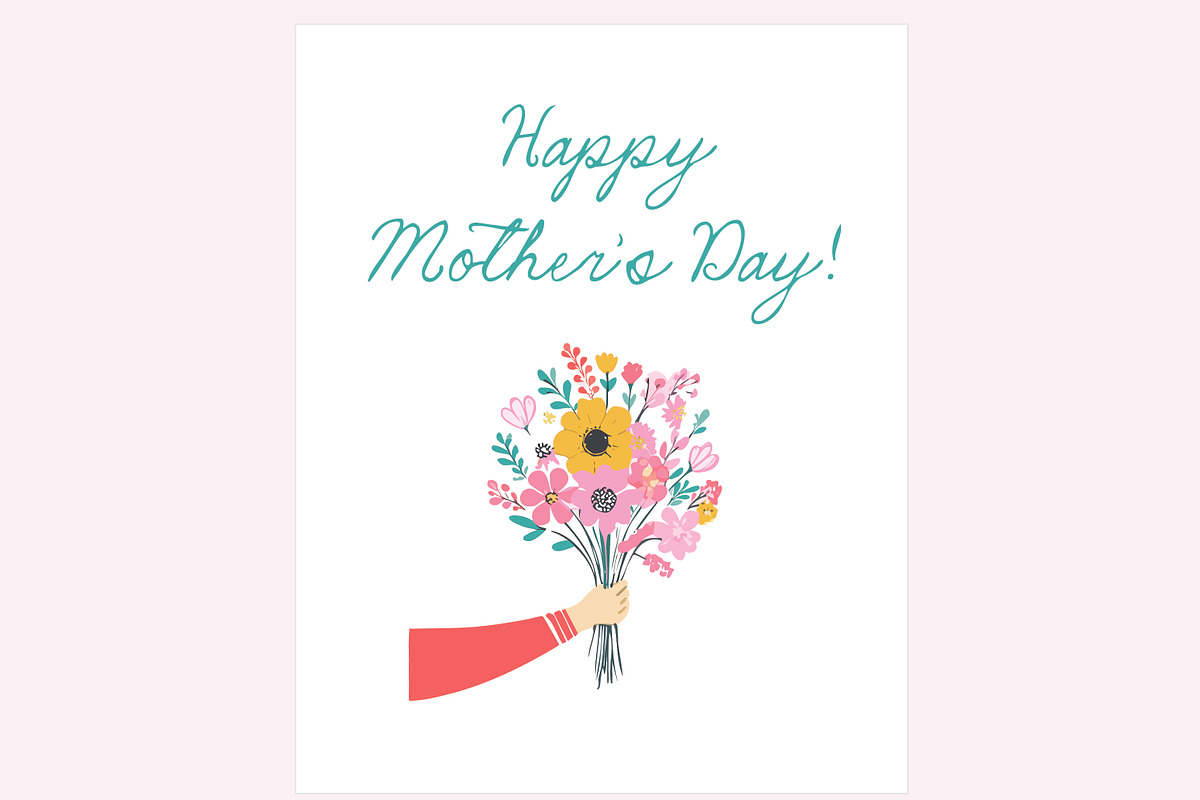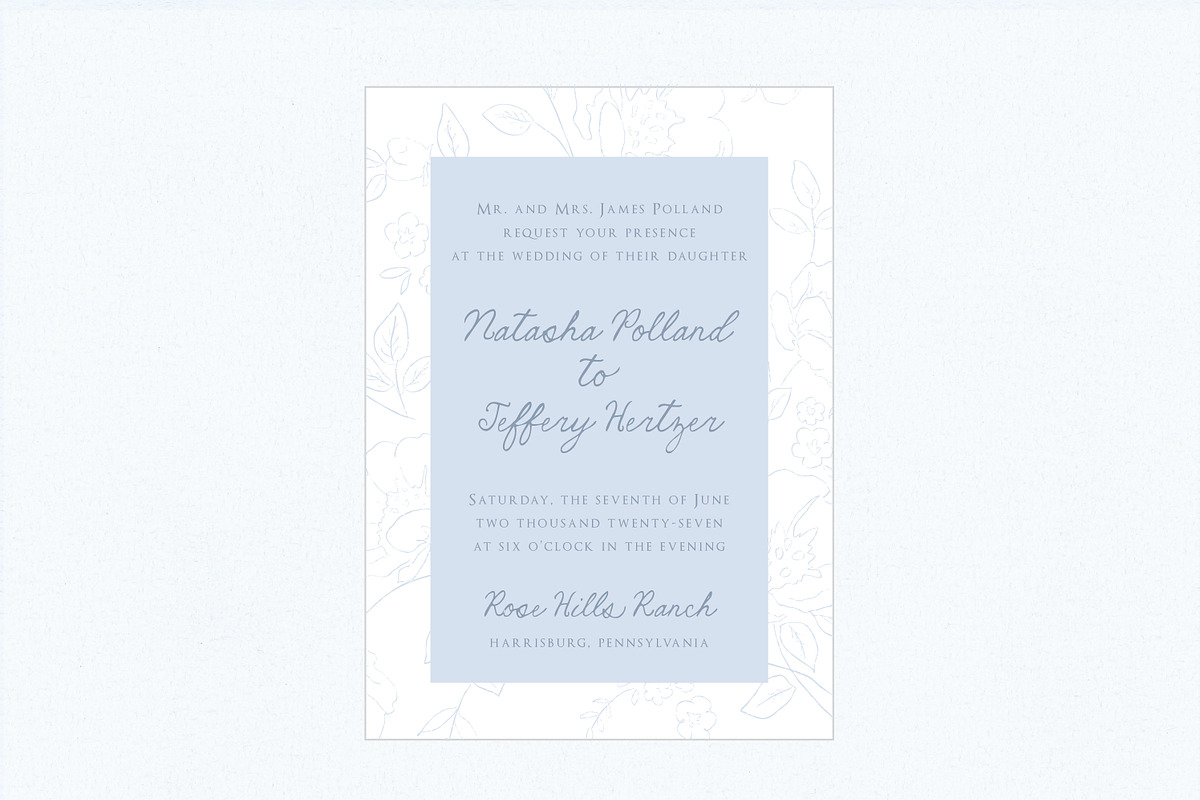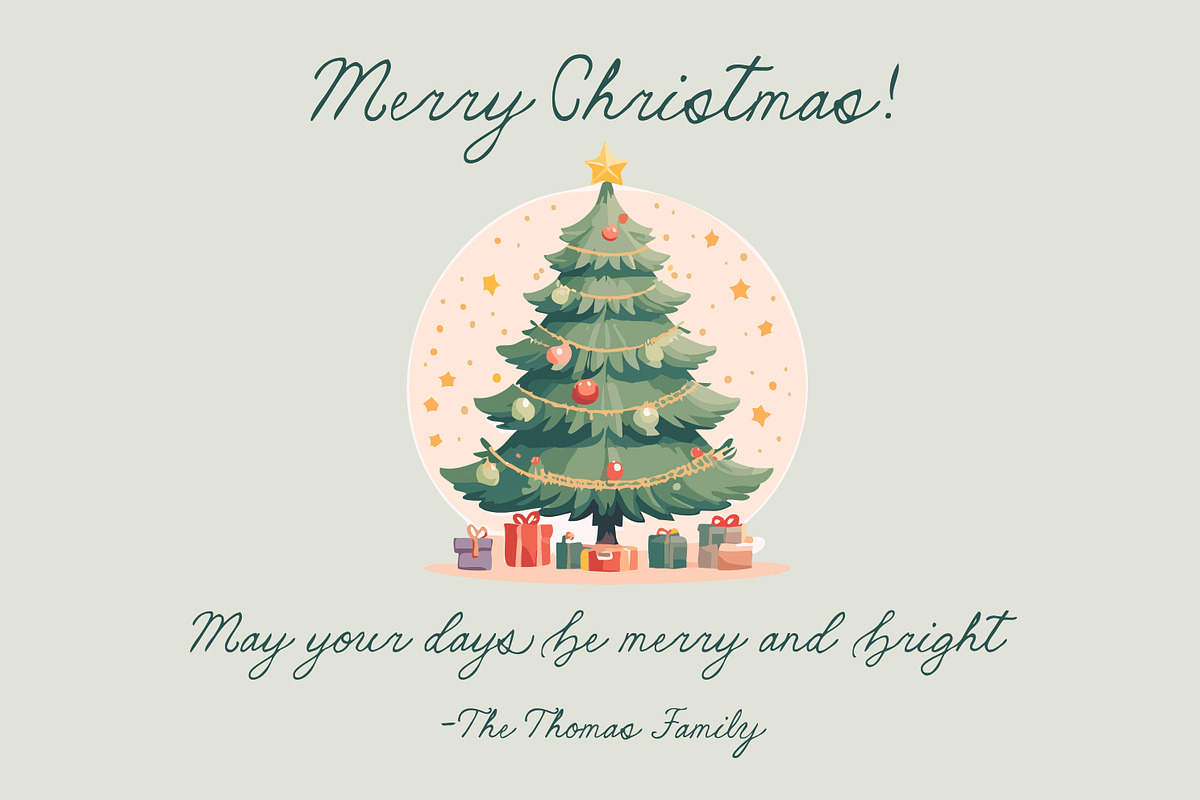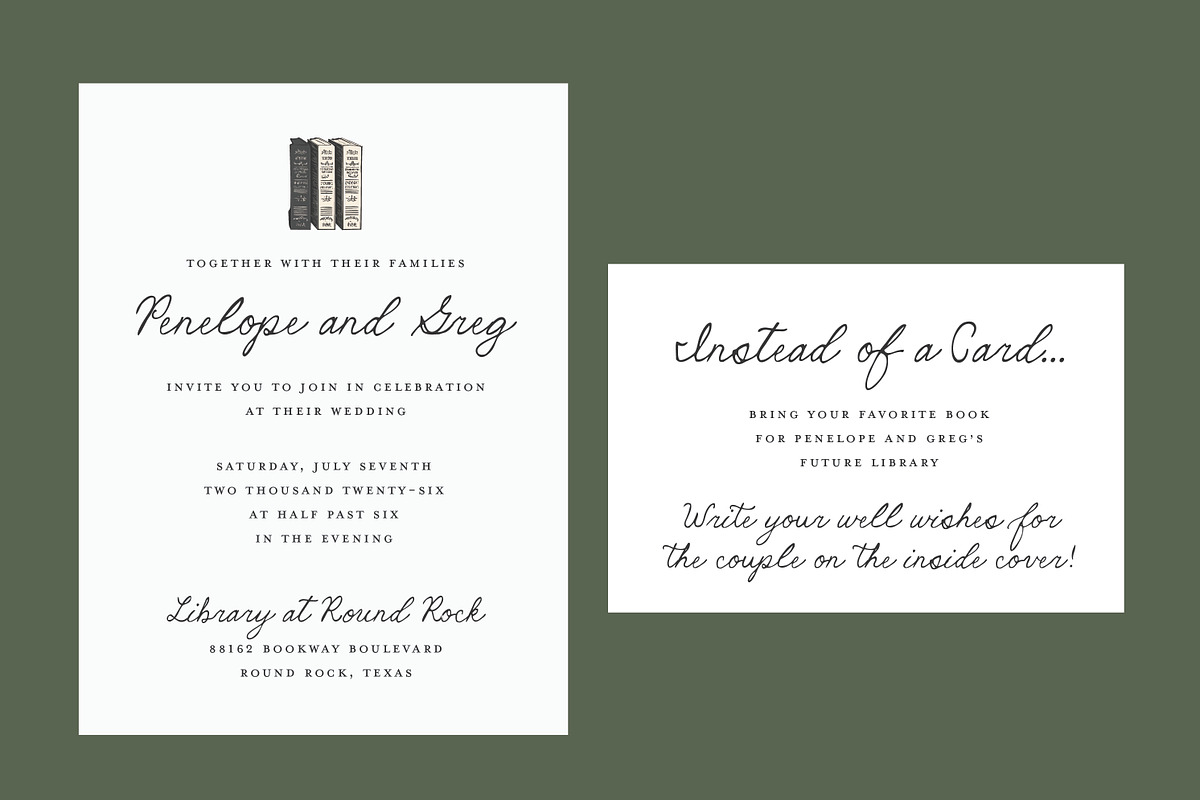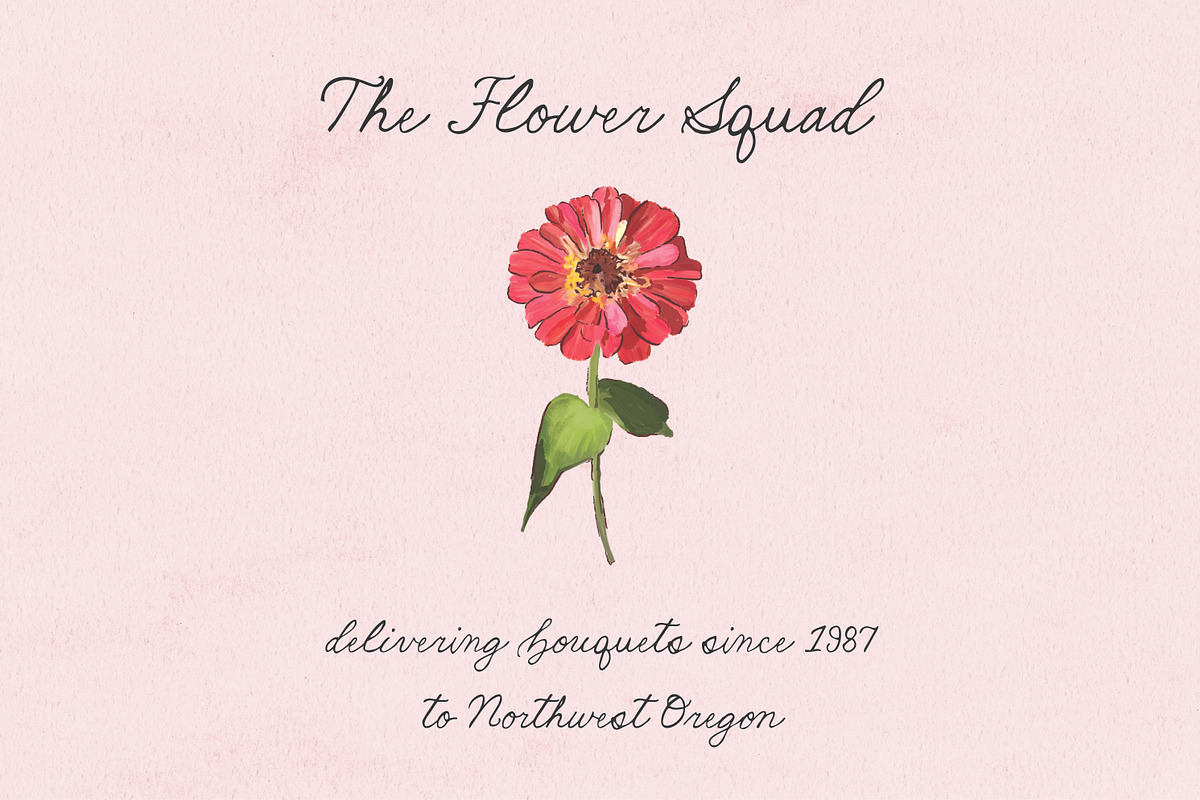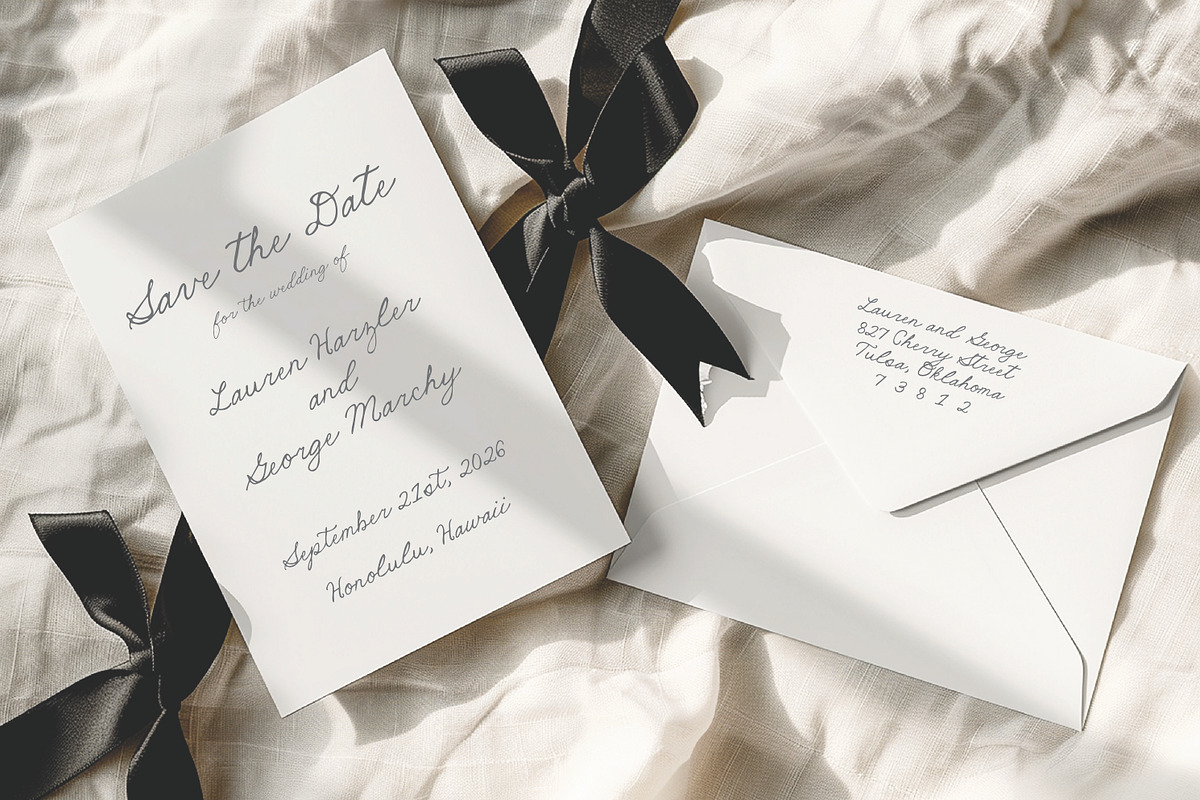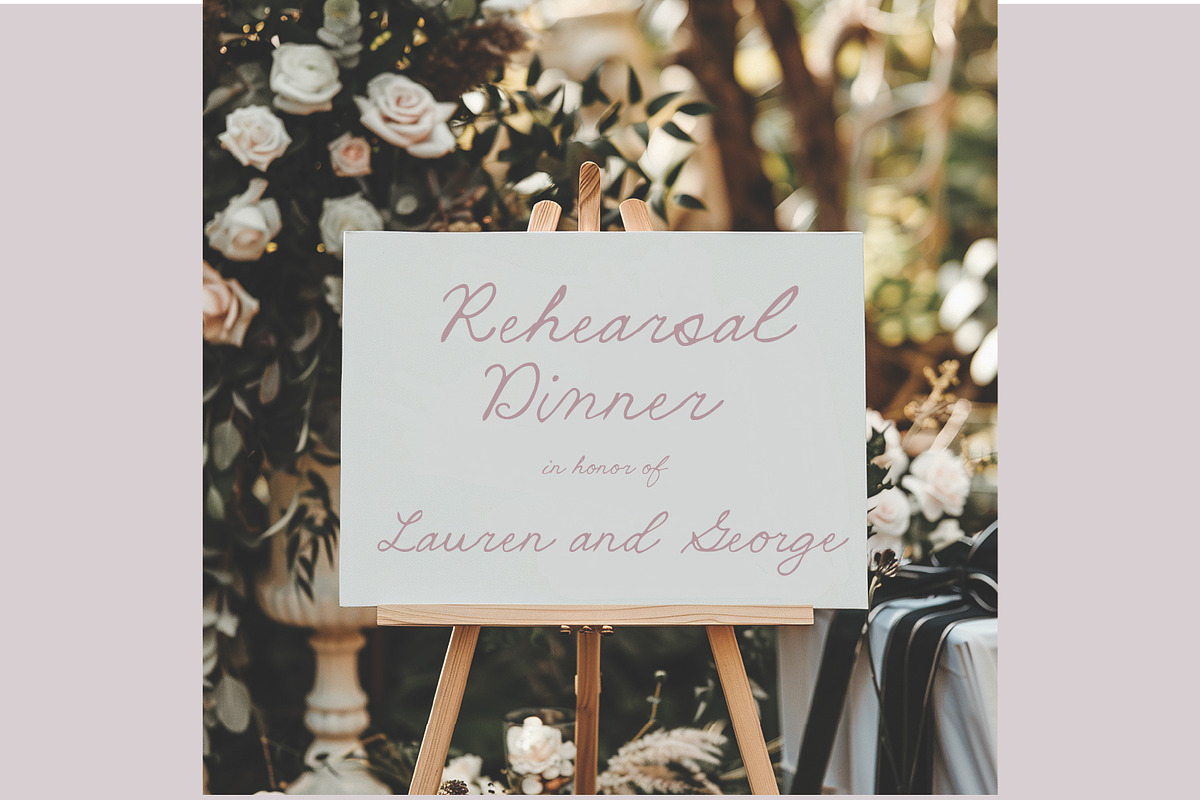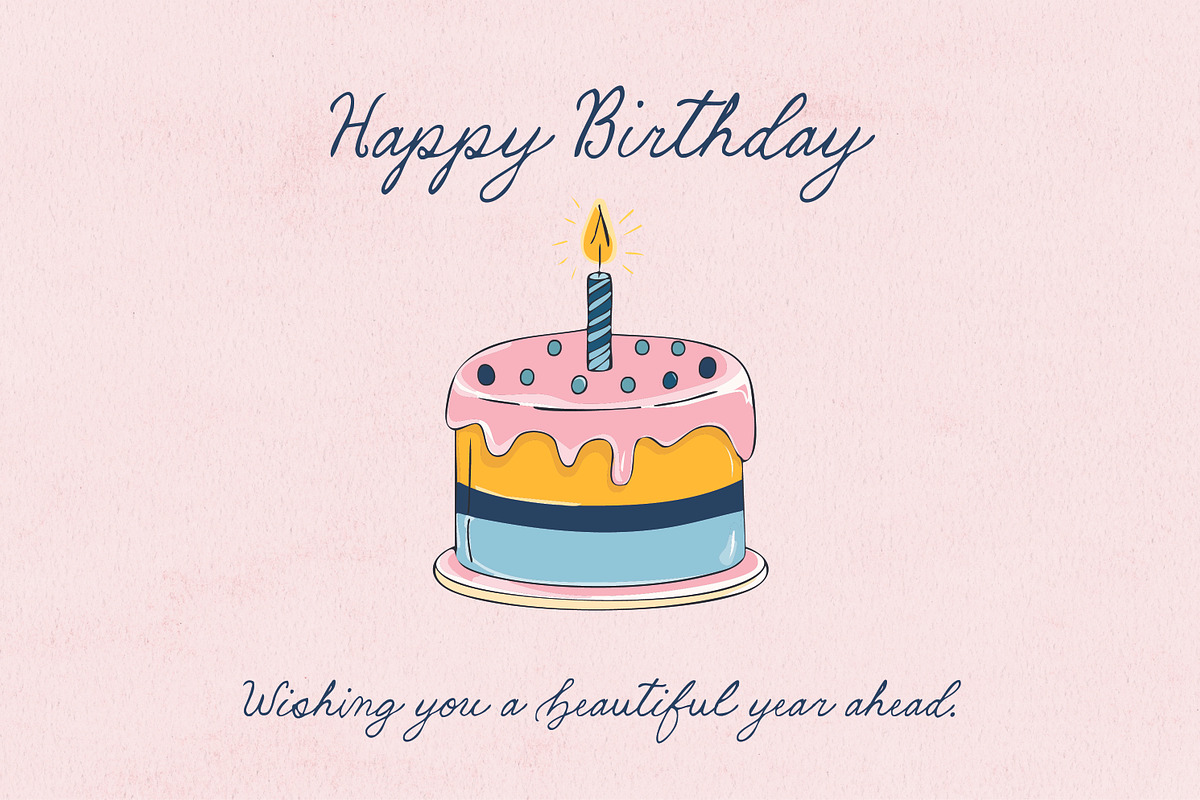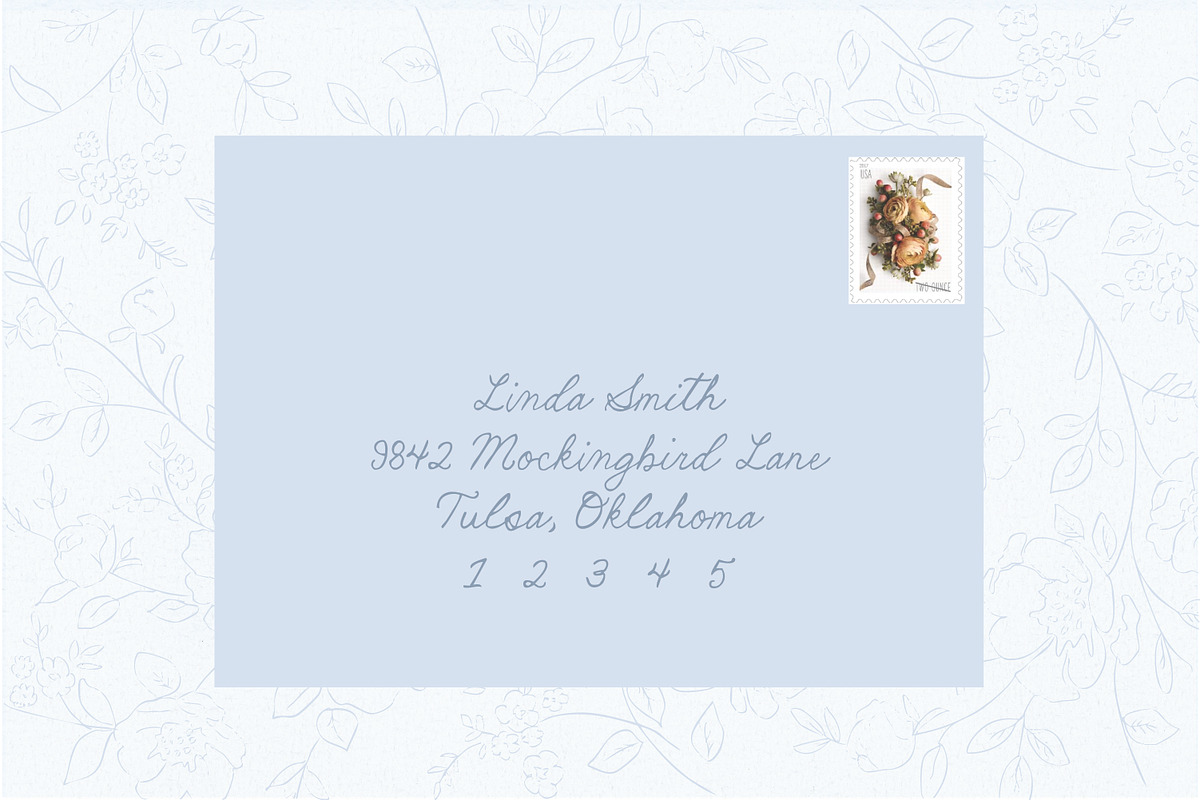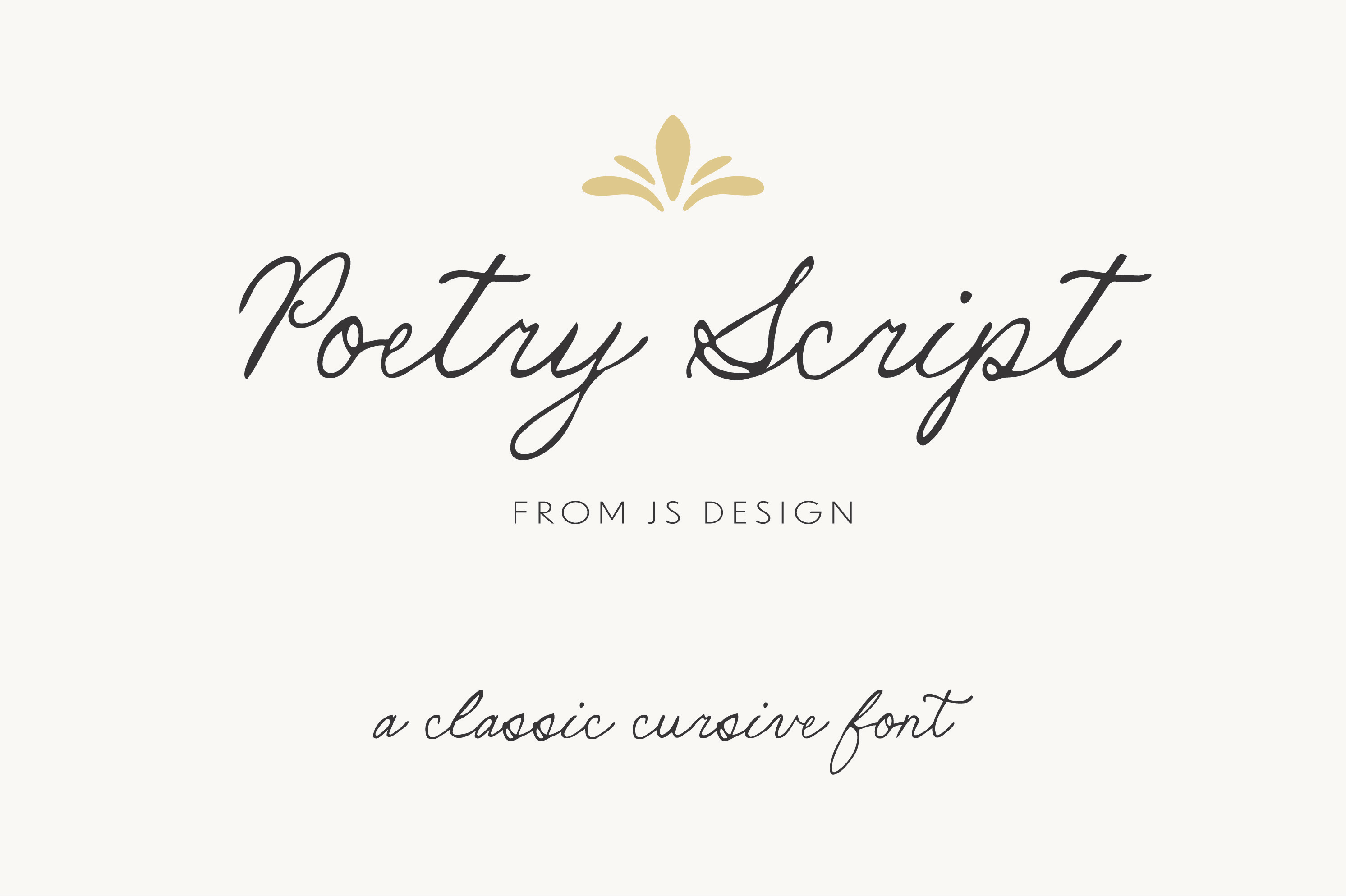
Poetry Script Font
Poetry Script is a classic cursive font great for weddings, invitations, stationery, websites, logos, packaging, and more. It's readable for addresses, headline text, and signage. The alternate endings, beginnings, and stylistic alternates give this font that handwritten look.
Those who enjoy a hand-written, traditional cursive font, will appreciate this design asset. It features extra ligatures so you can further customize the font.